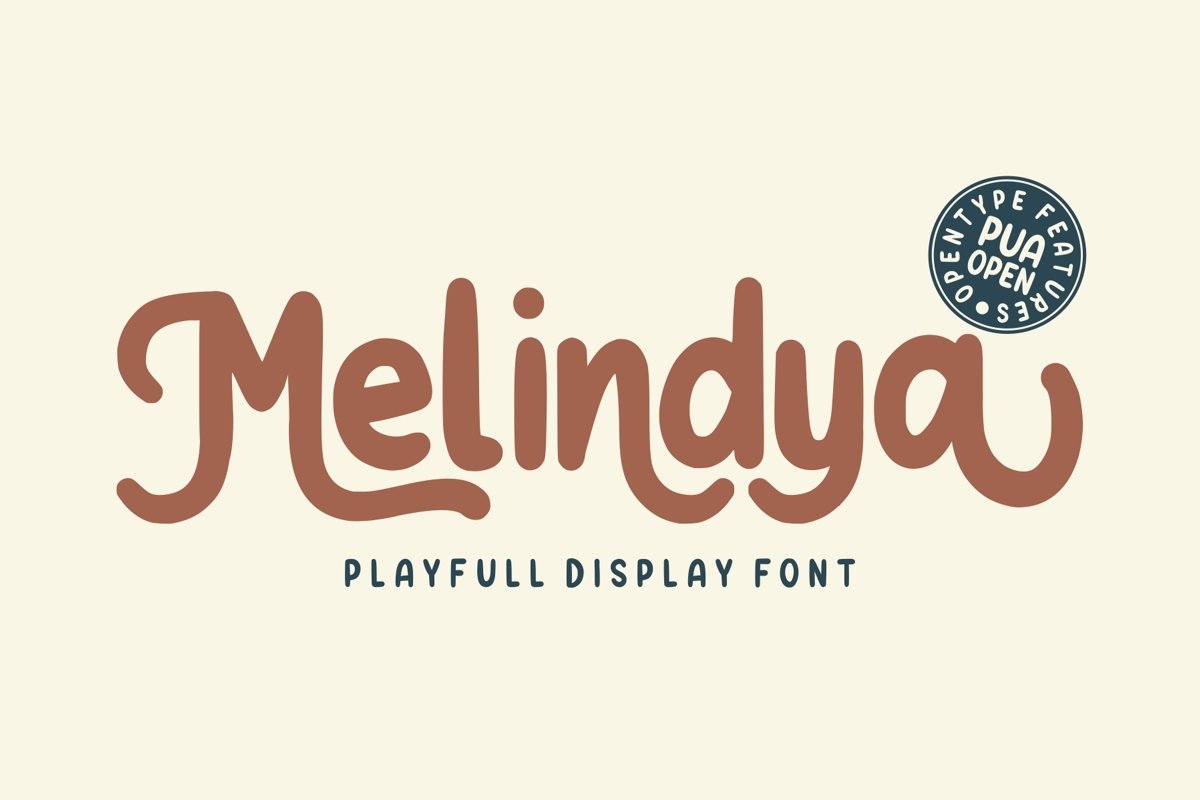
Melindya
Introducing Melindya | Playfull Display Font
Melindya is a playfully display font make from handdrawn ideas in typeface. This font includes full of Alphabetical glyphs, Numerals, and punctuation. This is so perfect for invitations, monograms, wedding, fashion, branding, label, handdrawn or logotype.
- Ligature & Stylistic Set
- Very great for branding, logotype, handletteing, invitations, or fashion branding.